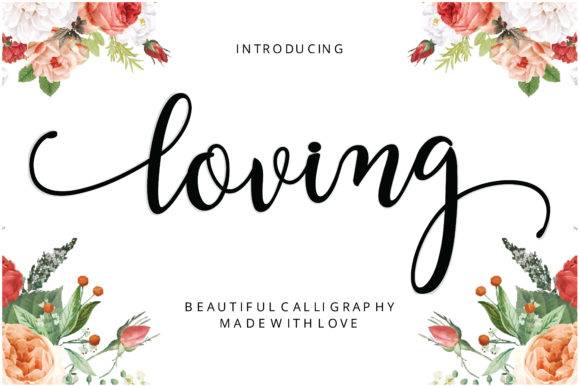
Loving Font for Cricut, Silhouette and Printable Designs
The Loving Font is a beautifully crafted script typeface that brings warmth and emotion to every project. Designed with smooth strokes and charming glyphs, it’s optimized for vinyl cutting machines and printable design layouts, making it perfect for both digital and physical crafts.
As a primary FONT file, it supports wide-ranging creative outputs like wedding signage, custom quotes, and sublimation-ready designs. Whether you're crafting for Valentine's Day or branding a boutique, this font ensures legibility and style across media.
- Vinyl decals and HTV apparel
- Printable quotes and wall art
- Wedding invitations and signage
- Greeting cards, mugs, and tumblers
- Social media graphics and branding elements
- Romantic and hand-lettered script style
- Works great on cutting machines and print software
- Perfect for seasonal, wedding, and branding designs